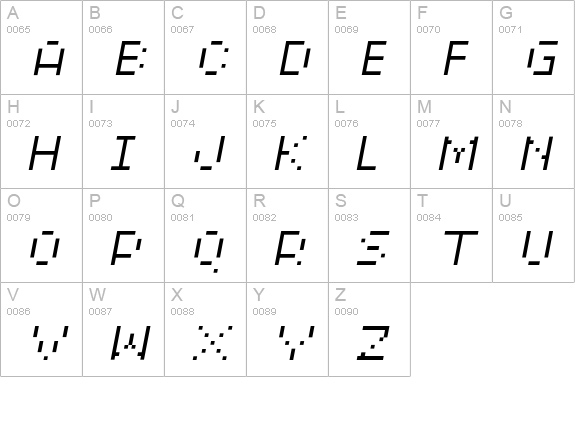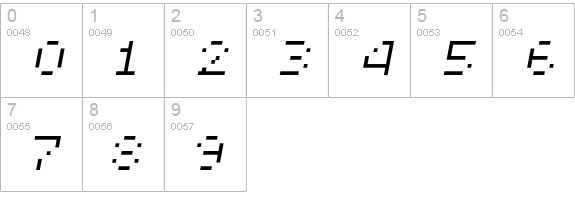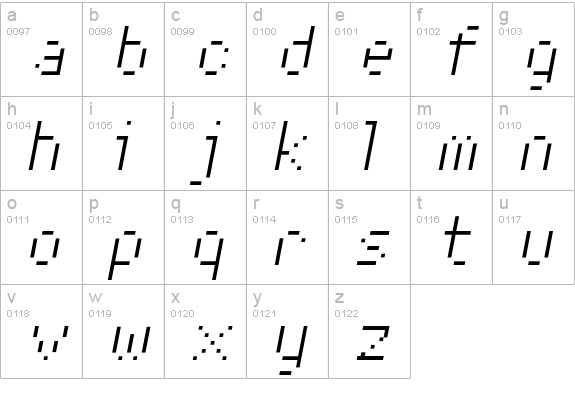
XERXES-ELEVENALTOBLIQUE Font Details
XERXES-ELEVENALTOBLIQUE font is a stunning and modern typeface that exudes elegance and sophistication. With its unique design and sleek lines, this font is perfect for adding a touch of style to any project. The XERXES-ELEVENALTOBLIQUE font is versatile and can be used for a wide range of design applications, from branding to advertising to social media graphics. What sets this font apart is not only its striking appearance but also the fact that it is available for free download at FontsMarket.com. This means that you can easily incorporate this beautiful typeface into your projects without breaking the bank. Whether you're a seasoned designer or just starting out, the XERXES-ELEVENALTOBLIQUE font is sure to elevate your work and leave a lasting impression. Download it today and let your creativity soar with this amazing font!